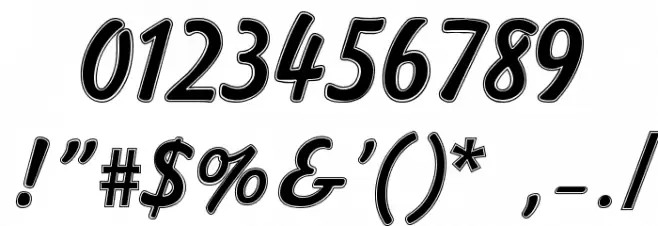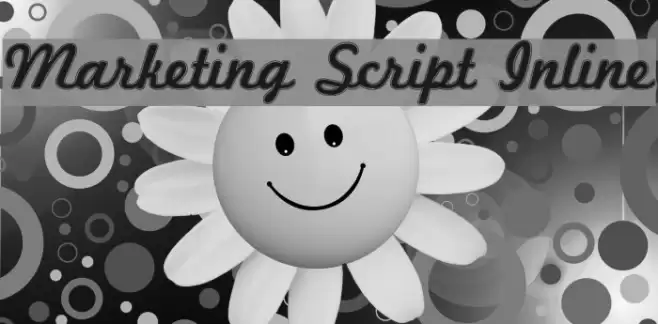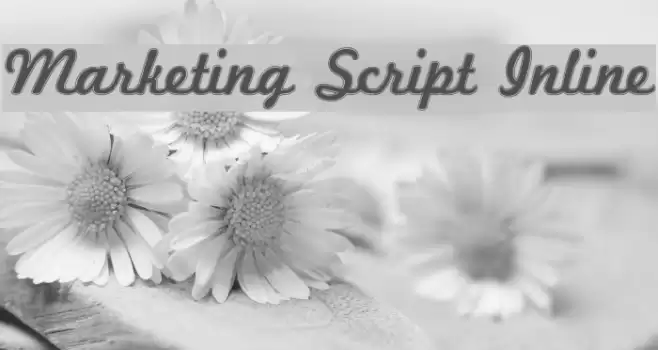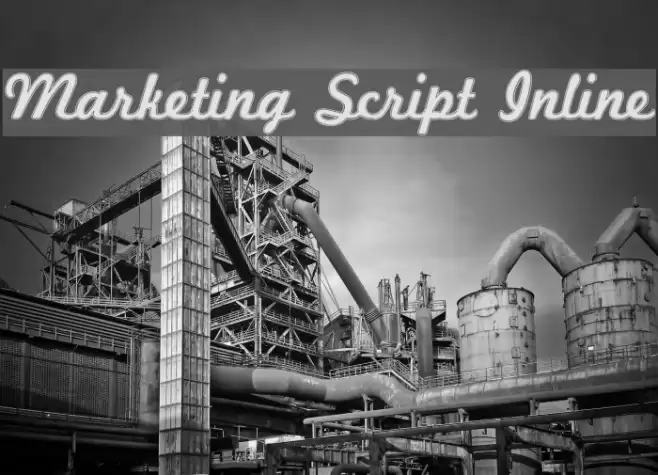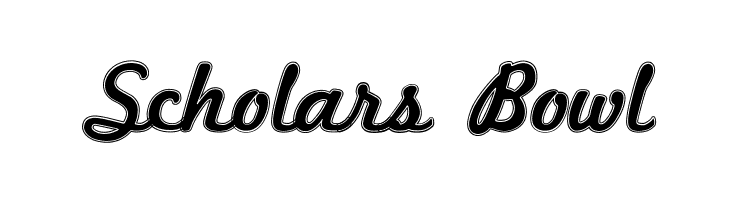
Marketing Script Inline Font
Marketing Script Inline Description
This font features a bold, flowing script style that mimics the fluidity of handwriting. The characters are connected, creating a seamless and elegant appearance. The bold strokes are complemented by a subtle shadow effect, adding depth and a three-dimensional quality. The uppercase letters are slightly larger and more pronounced, while the lowercase letters maintain a consistent flow. Numbers and special characters are designed to match the script style, ensuring uniformity across all elements. This font exudes a sense of sophistication and creativity, making it ideal for projects that require a personal touch.
Fonts by Dieter Steffmann
| Use Case | Logos, Invitations, Branding |
| Proposed Projects | Ideal for wedding invitations, greeting cards, branding, and logo design where a personal and elegant touch is desired. |